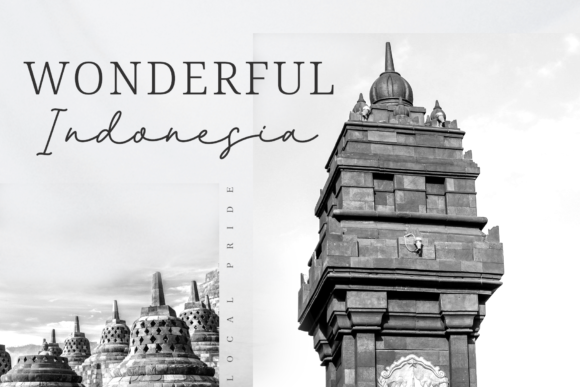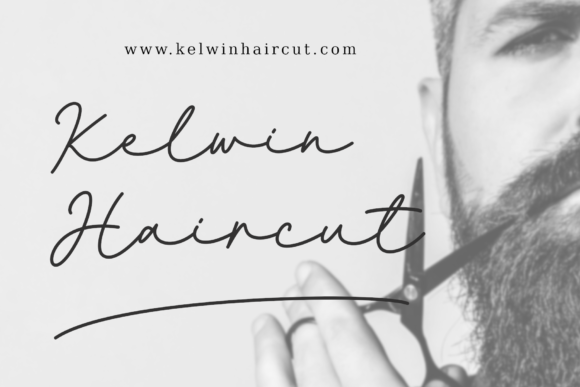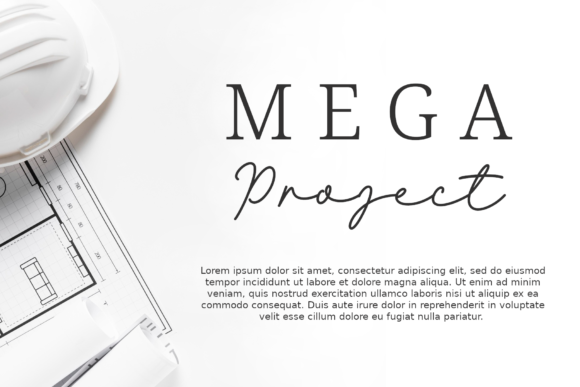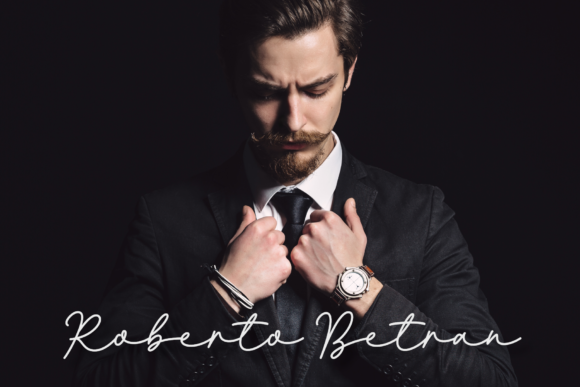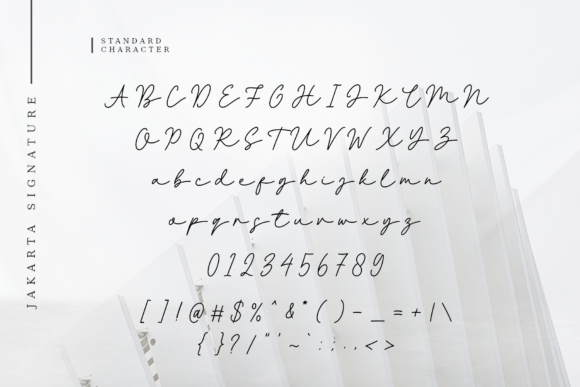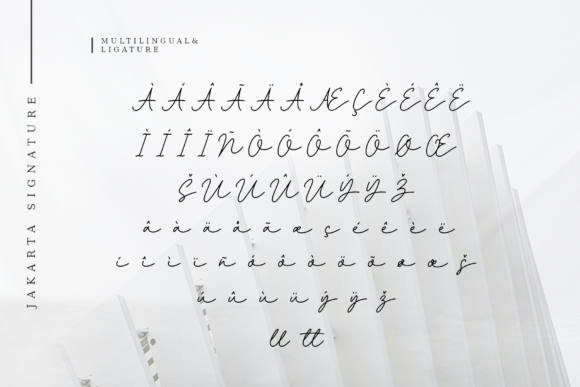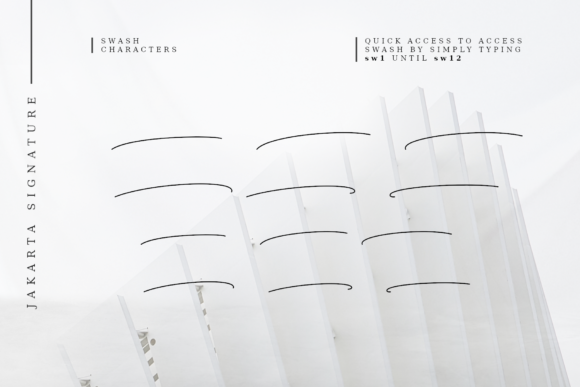
About Jakarta Signature Font
Jakarta Signature is a lovely script font featuring charming, playful characters that seem to dance along the baseline. Add this font to your most creative ideas, and notice how it makes them stand out!